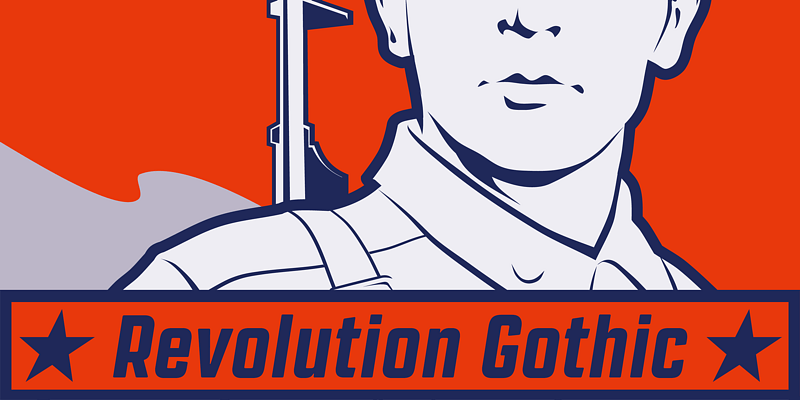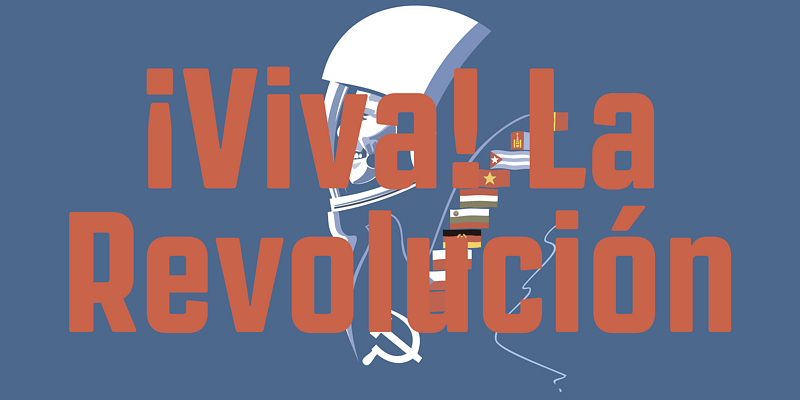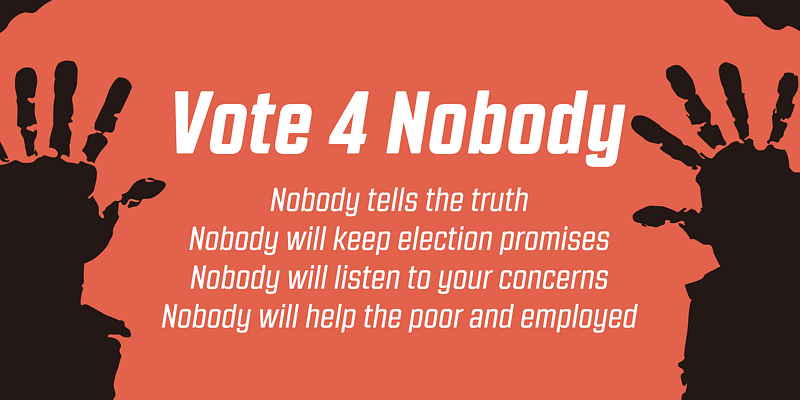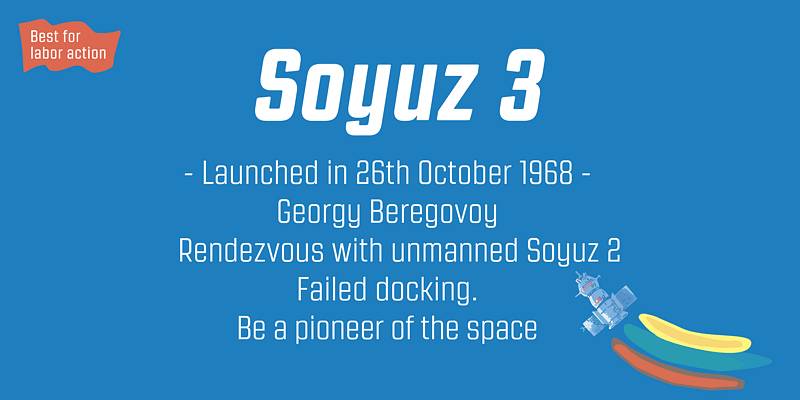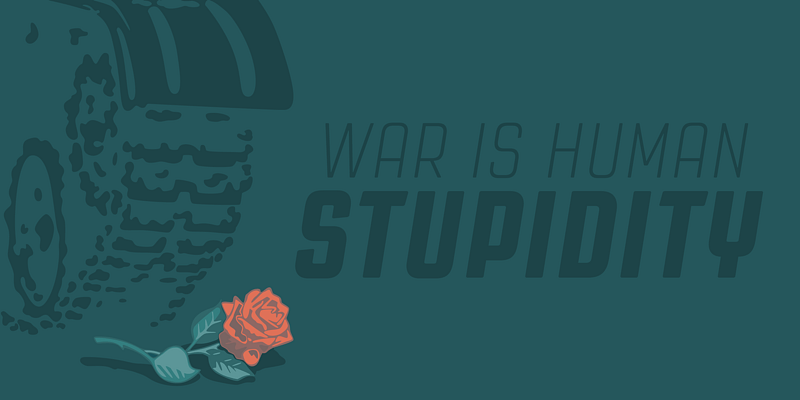
Revolution Gothic is inspired by retro propaganda posters and wallpainting in old days but all glyphs were designed carefully to fit contemporary design needs.